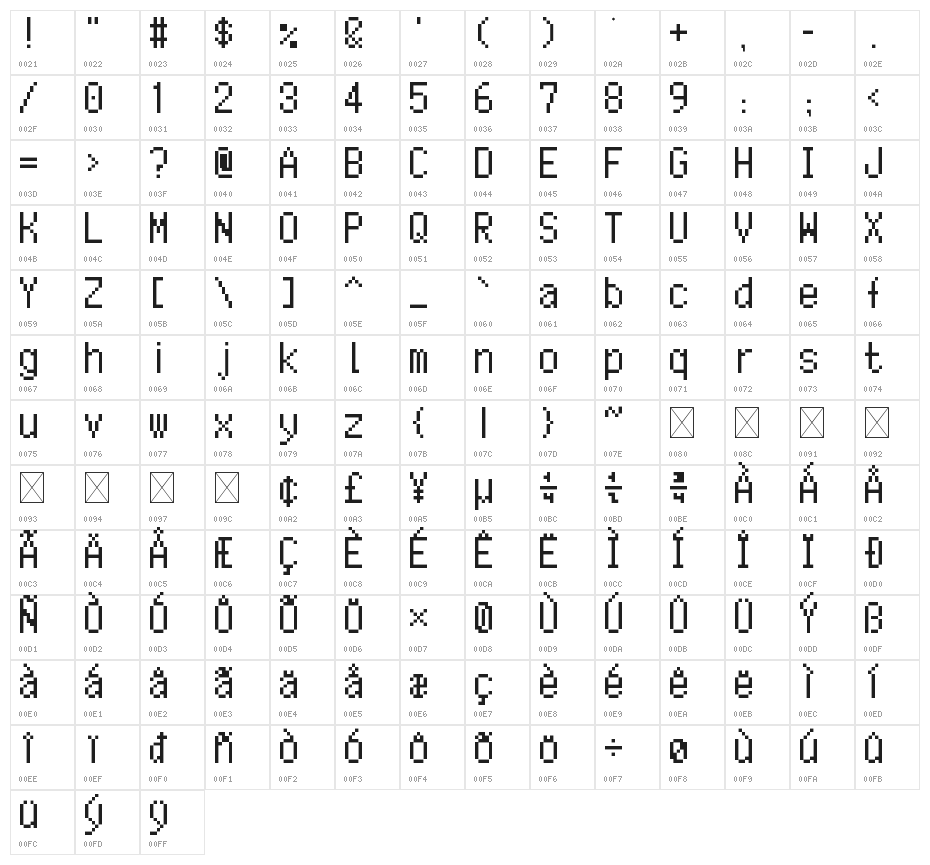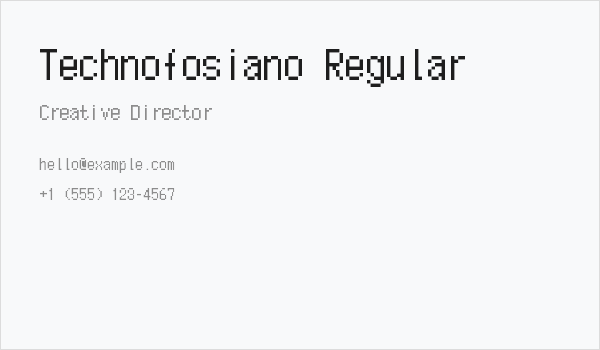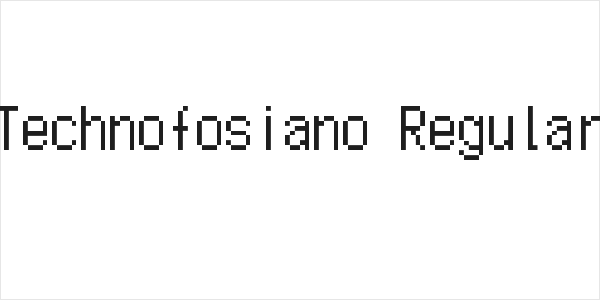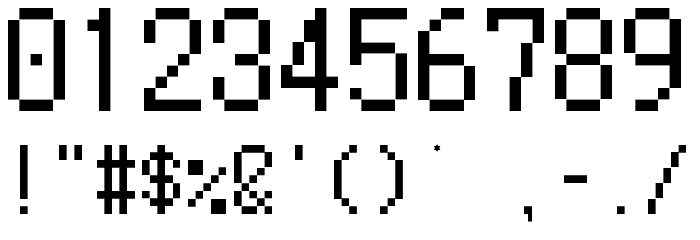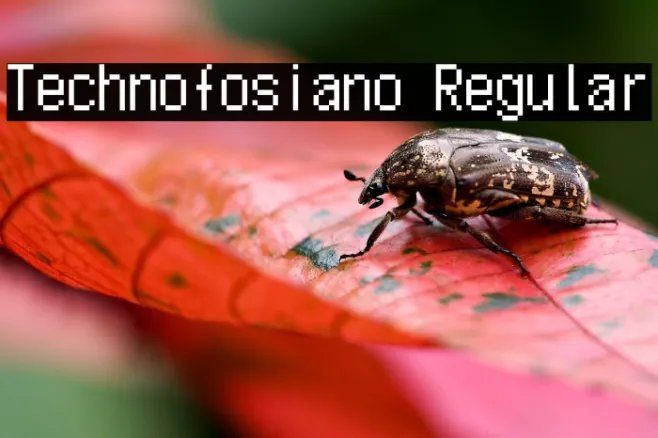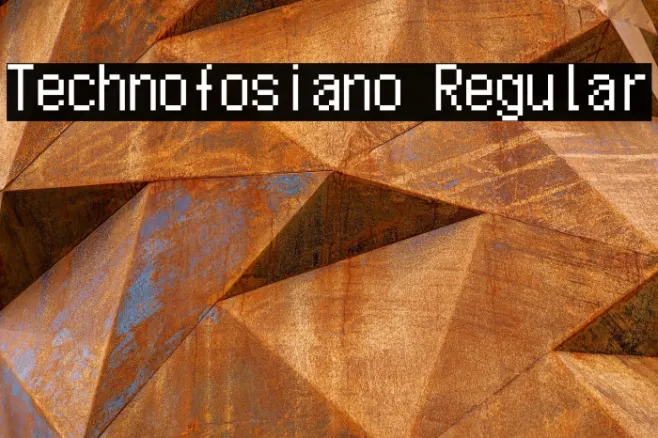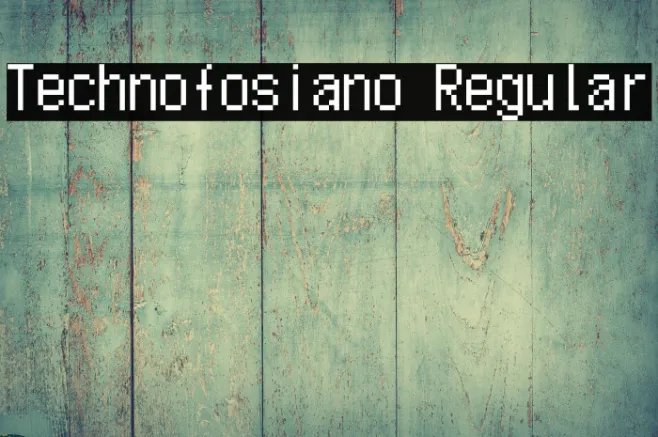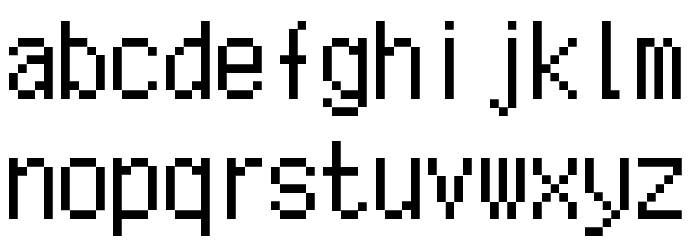
Technofosiano Regular Font
Technofosiano Regular Description
This font features a pixelated, monospaced design reminiscent of early digital displays and retro video games. Each character is constructed with a grid-like precision, giving it a distinctly technological and vintage feel. The uniformity in character width ensures a consistent and orderly appearance, making it ideal for projects that require a nostalgic or digital aesthetic. The uppercase and lowercase letters maintain a similar height, contributing to its blocky and geometric style. Numbers and special characters are crafted with the same pixelated approach, ensuring visual harmony throughout the typeface.
| Use Case | Logos, Digital displays, Coding interfaces |
| Proposed Projects | Ideal for retro video game designs, digital art projects, tech-themed posters, and coding interfaces. |